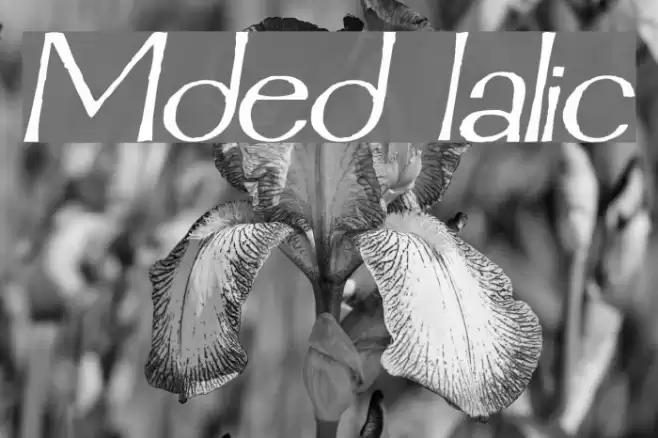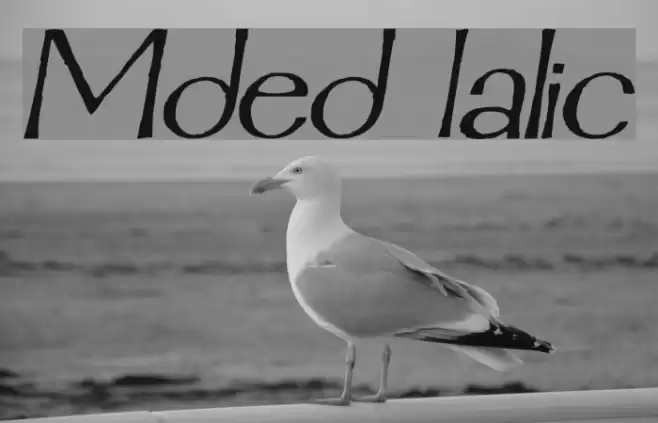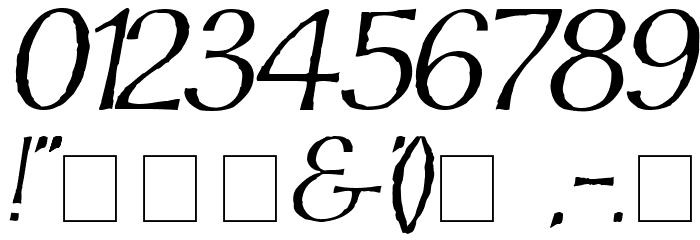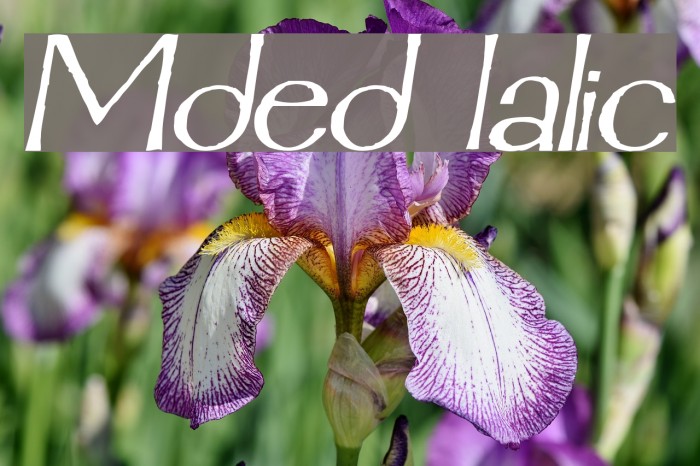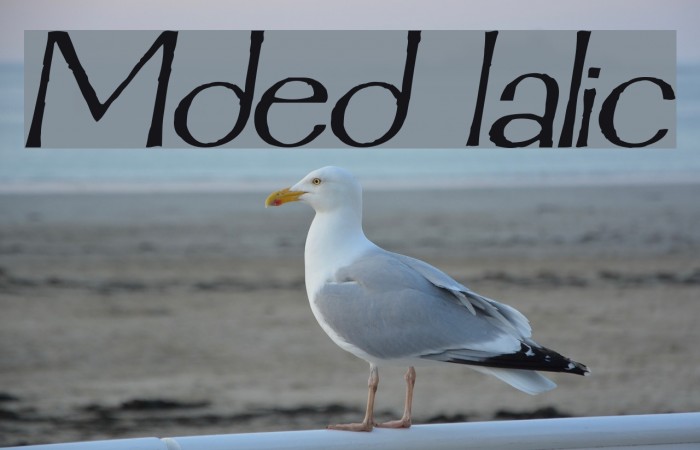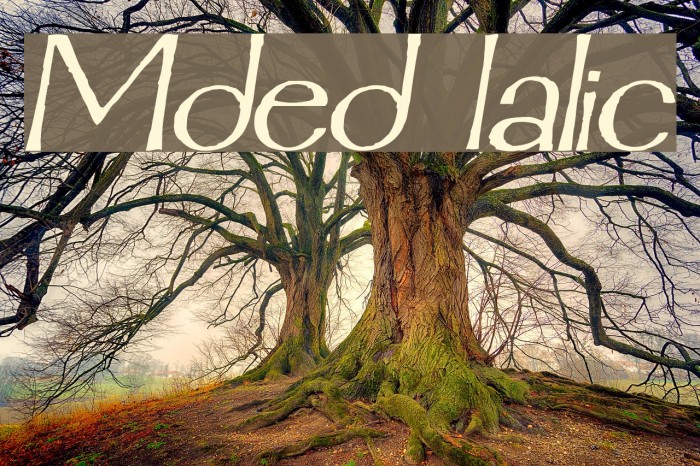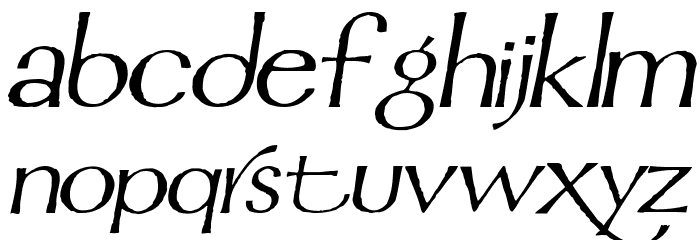
Mordred Italic Font
Mordred Italic Description
This font exhibits a distinctive italic style with a modern and slightly edgy appearance. The uppercase letters are characterized by sharp, angular lines and a forward-leaning posture, giving them a dynamic and energetic feel. The lowercase letters maintain this slanted style, with smooth curves and a consistent flow, enhancing readability while preserving the font's unique character. The numerals are bold and clear, matching the overall aesthetic with their slightly condensed form. Special characters are crafted with the same attention to detail, ensuring they integrate seamlessly with the rest of the typeface. This font's design is both artistic and functional, making it suitable for a variety of creative applications.
A modern italic font with sharp, angular lines and a dynamic, forward-leaning style from Script fonts.
- Proposed Projects: Ideal for branding, editorial design, posters, and creative projects that require a modern and artistic touch.
- Overall Style: Modern, Decorative